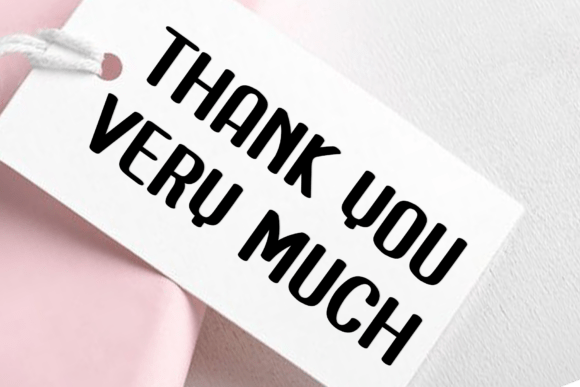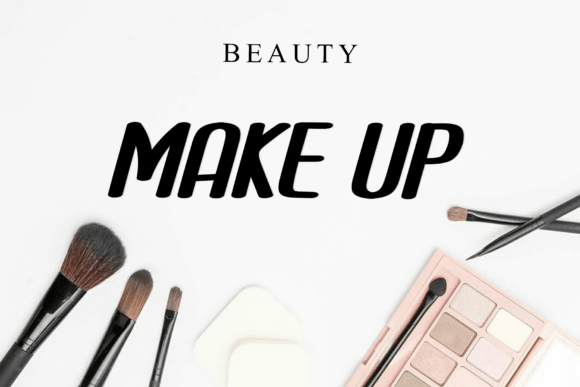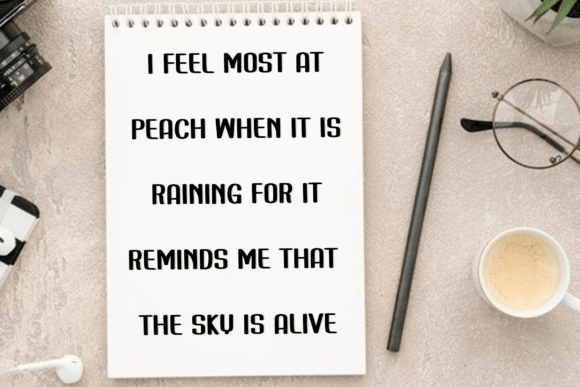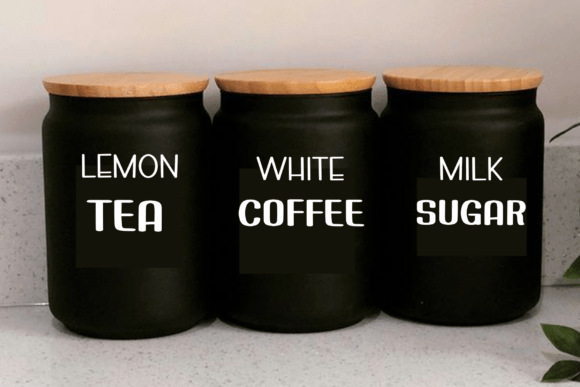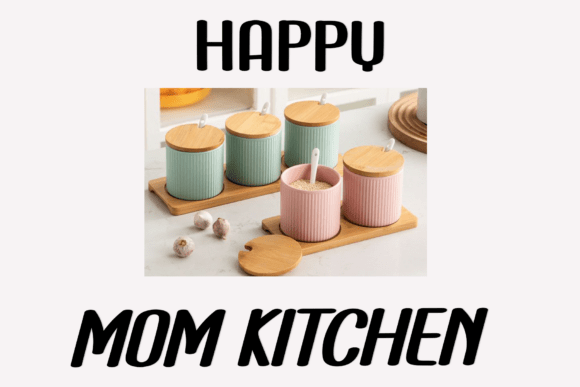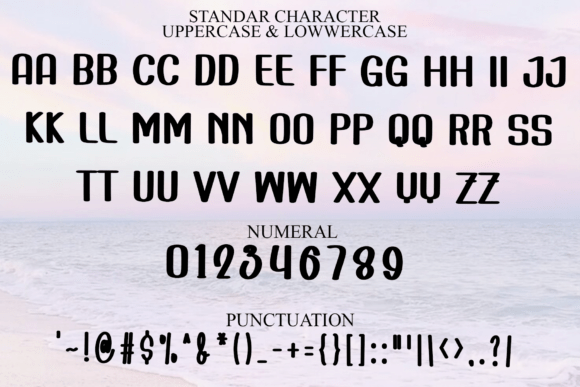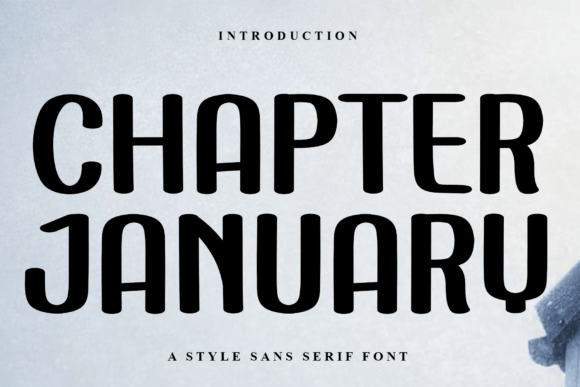
Introducing Chapter January Font: The Ultimate Holiday Typeface
The holiday season is upon us, and with it comes the desire to create festive and merry designs that capture the spirit of the season. If you’re a designer or crafter looking for the perfect typeface to add a touch of enchantment to your projects, look no further than Chapter January Font. This beautiful font is designed to bring a cheerful and nostalgic ambiance to your words, making it perfect for greeting cards, gift tags, and holiday-themed projects.
Chapter January Font is a decorative typeface that embodies the magic of the holiday season. Its whimsical flair and decorative elements make it a standout from other fonts, adding a touch of wonder to your designs. Whether you’re creating holiday cards, gift tags, or festive posters, this font is sure to bring a smile to the faces of your audience.
Chapter January Font is a versatile typeface that can be used in a variety of design projects. Its PUA encoding makes it easy to access all of the amazing glyphs and ligatures, allowing you to create stunning designs with ease. Whether you’re a professional designer or a crafter looking to add a personal touch to your projects, this font is perfect for you.
Key Features of Chapter January Font
- PUA Encoding: Chapter January Font is PUA encoded, making it easy to access all of the amazing glyphs and ligatures.
- Decorative Elements: The font features decorative elements and whimsical flair, adding a touch of enchantment to your designs.
- Festive and Merry: Chapter January Font captures the spirit of the holiday season, making it perfect for holiday-themed projects.
- Versatile: The font can be used in a variety of design projects, from greeting cards to posters.
Using Chapter January Font in Your Designs
Tips for Getting the Most Out of Chapter January Font
- Experiment with Different Sizes: Chapter January Font looks great in a variety of sizes, from small and delicate to large and bold.
- Combine with Other Fonts: Try combining Chapter January Font with other fonts to create a unique and eye-catching design.
- Use in Digital and Print Projects: The font can be used in both digital and print projects, making it perfect for a variety of applications.
Chapter January Font is a beautiful and festive typeface that captures the spirit of the holiday season. With its decorative elements and whimsical flair, it adds a touch of enchantment to your designs. Perfect for greeting cards, gift tags, and holiday-themed projects, this font brings a cheerful and nostalgic ambiance to your words. Let your typography shine with the magic of Chapter January Font!